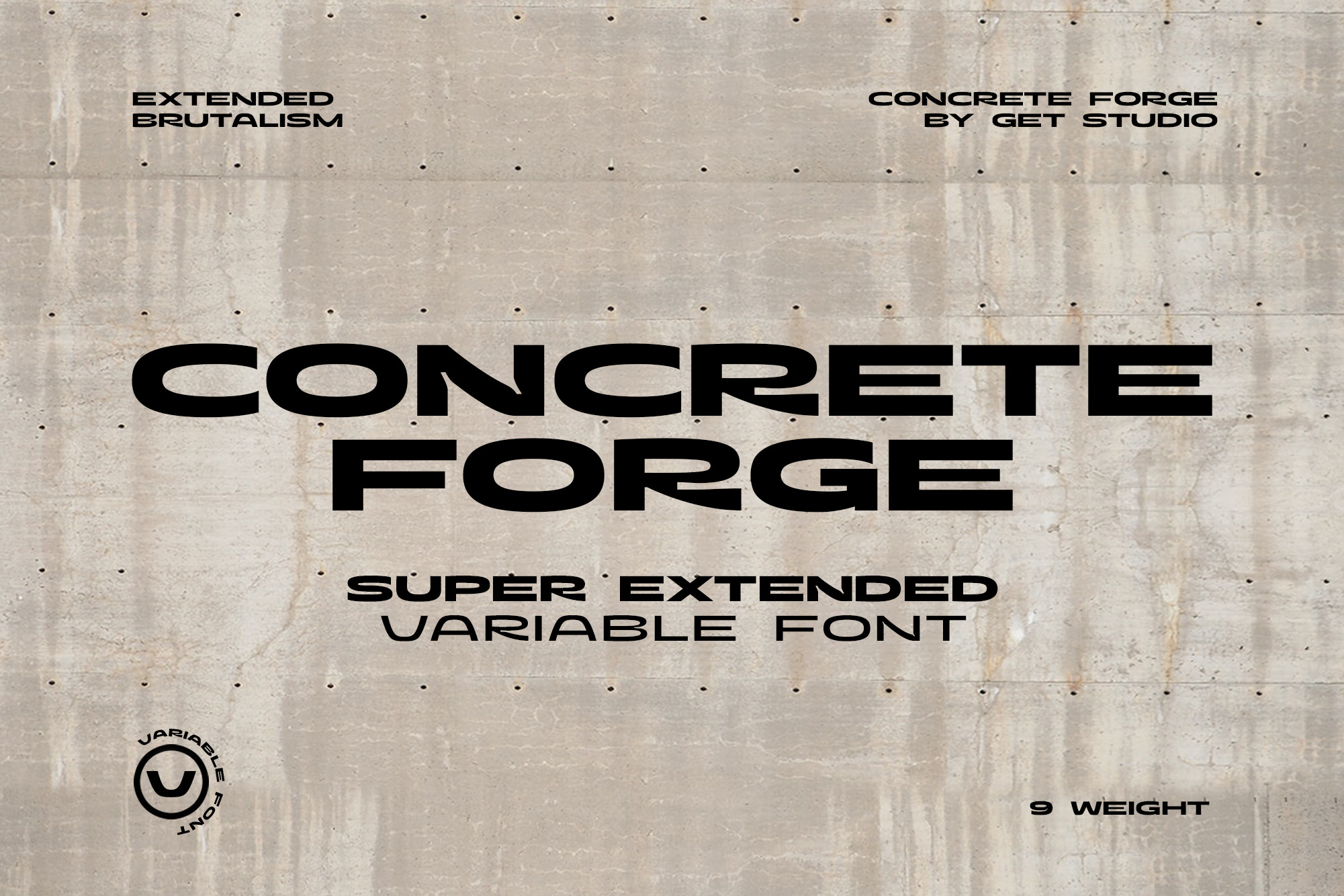
Concrete Forge Extended Typeface
ConcreteForge: A fearless brutalist font with extended shapes, exuding strength, and resilience. Captivating and impactful, it embraces simplicity while making a bold statement for branding and design projects.
Inspired by the raw aesthetics of brutalist architecture, this typeface exudes strength and confidence. Its characters feature robust, and sharp angles, reminiscent of the solidity and resilience of concrete structures.
The family includes 9 fonts in a variety of weights and supports Variable Font.